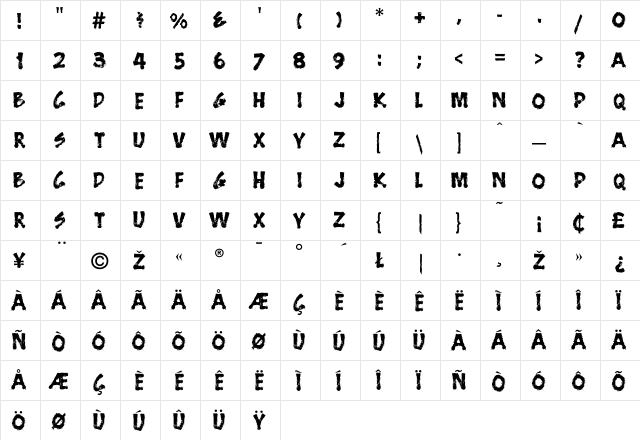
Bushman Regular
Design Context for Bushman Typeface
Bushman is a composed and adaptable typeface that performs quietly and consistently across a wide range of design contexts.